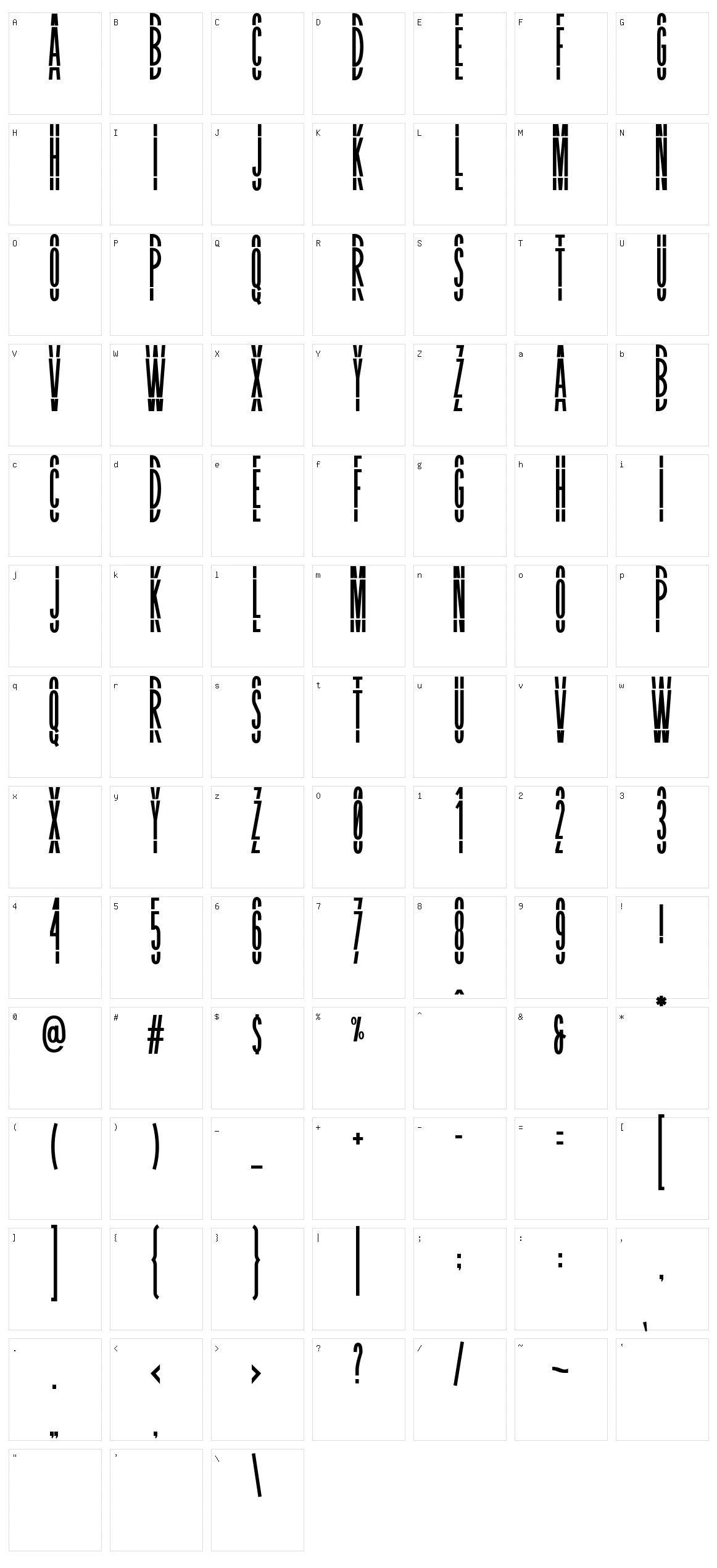
The free font Blastimo Sans is carefully designed by Debut Studio, showcasing a thoughtful balance of creativity and usability and falls under the Distorted font style. When you download the ZIP file, it contains only 724.43 KB of font files, making it lightweight and quick to download. Please review the license details below to understand permitted usage and distribution rights. If license information is not available, we recommend using this font for personal projects only or contacting the author directly for commercial usage permissions.